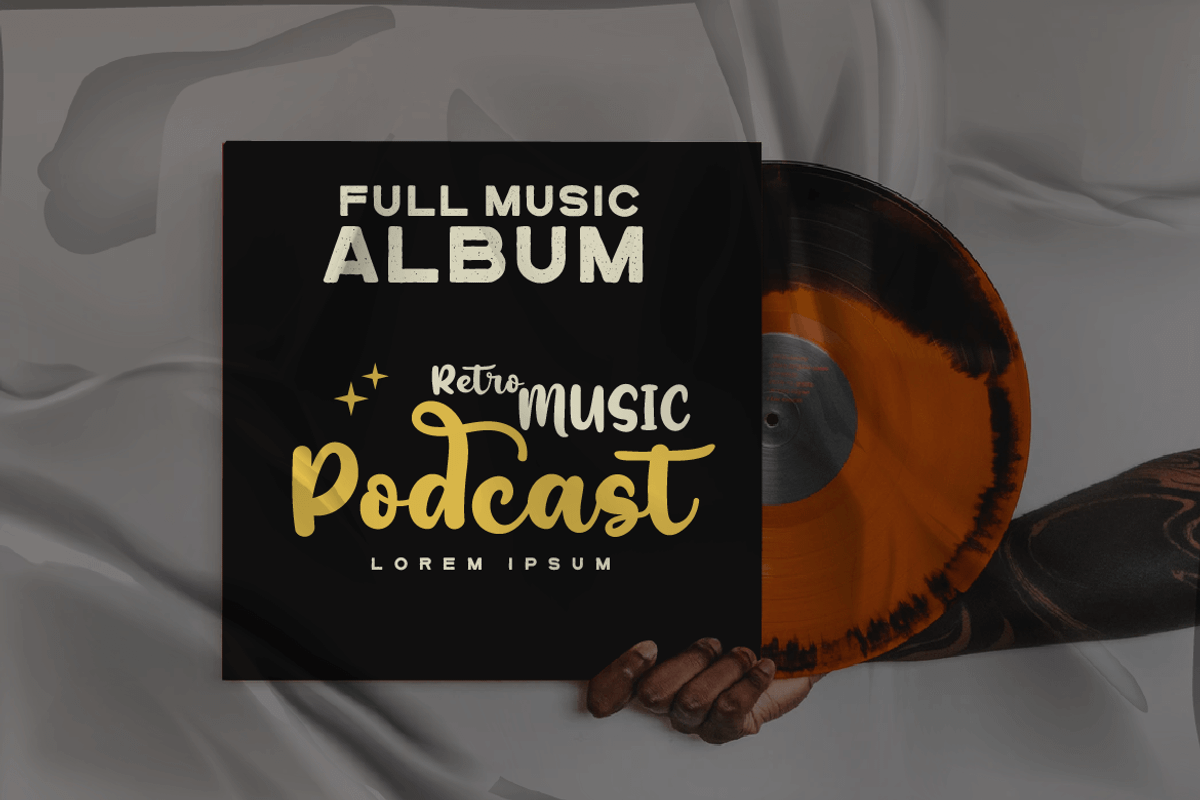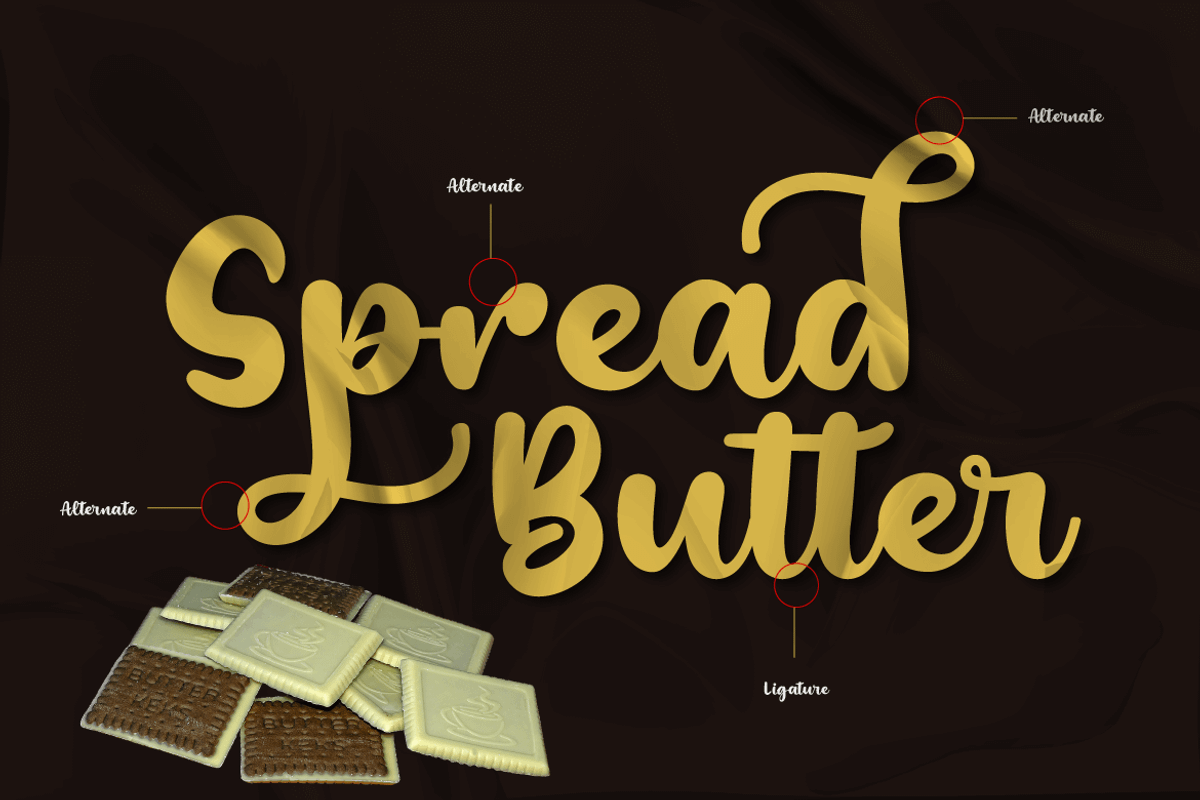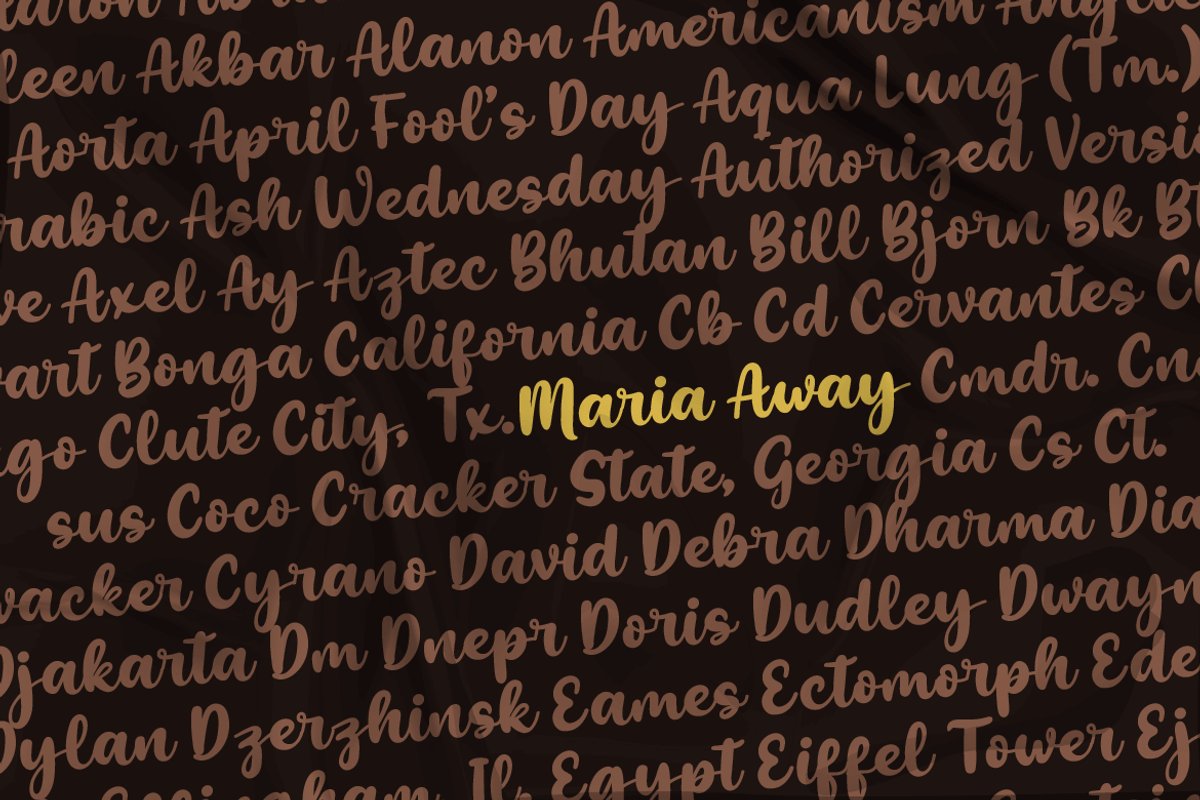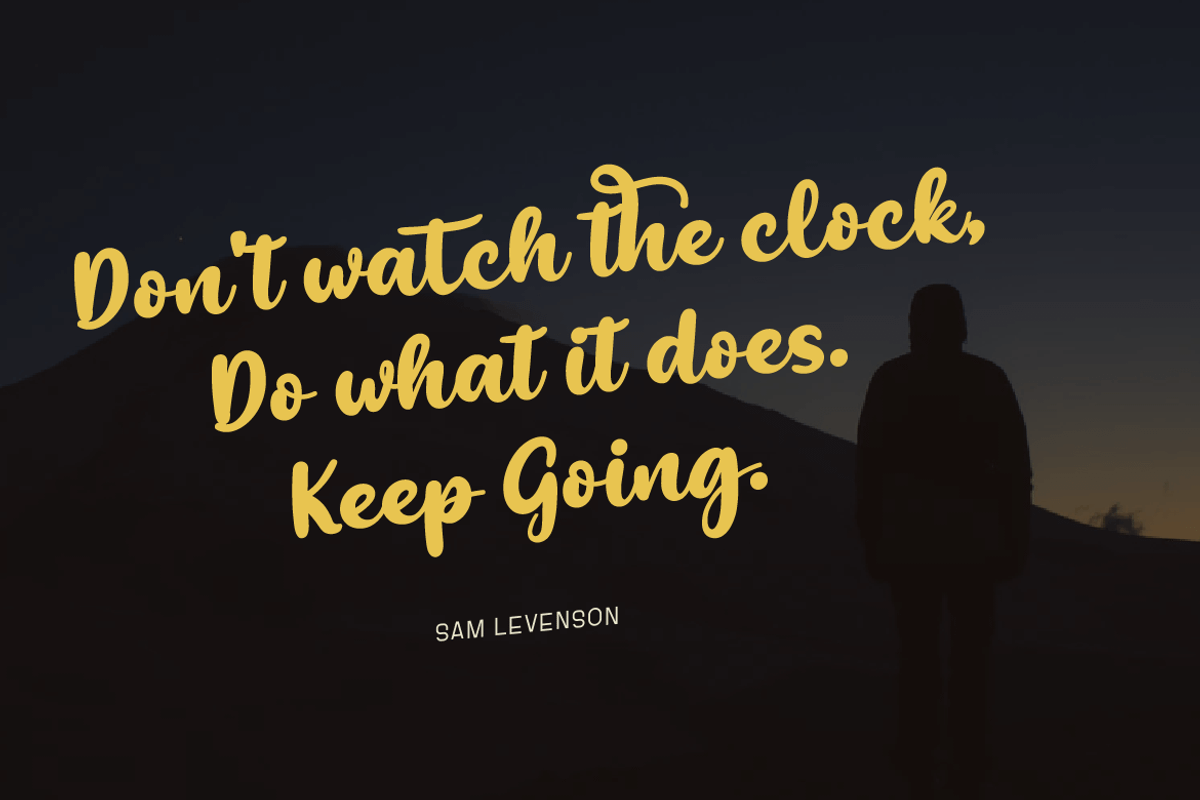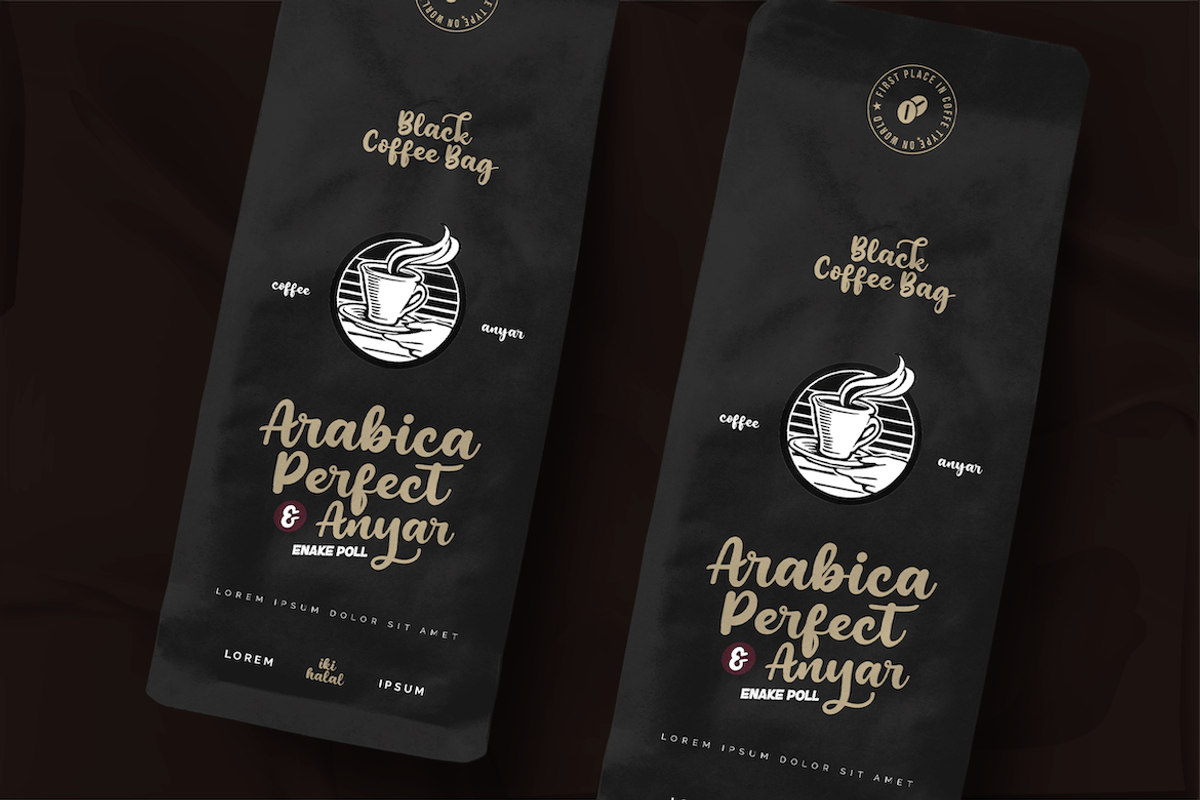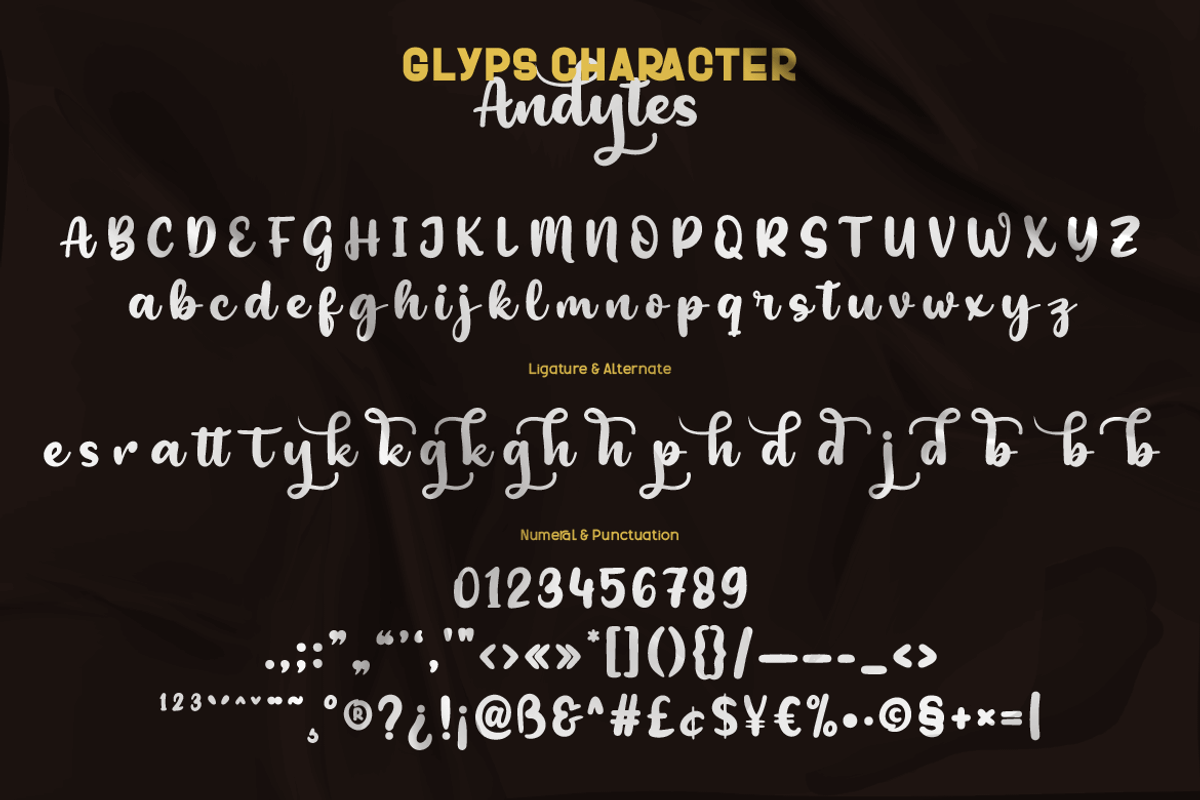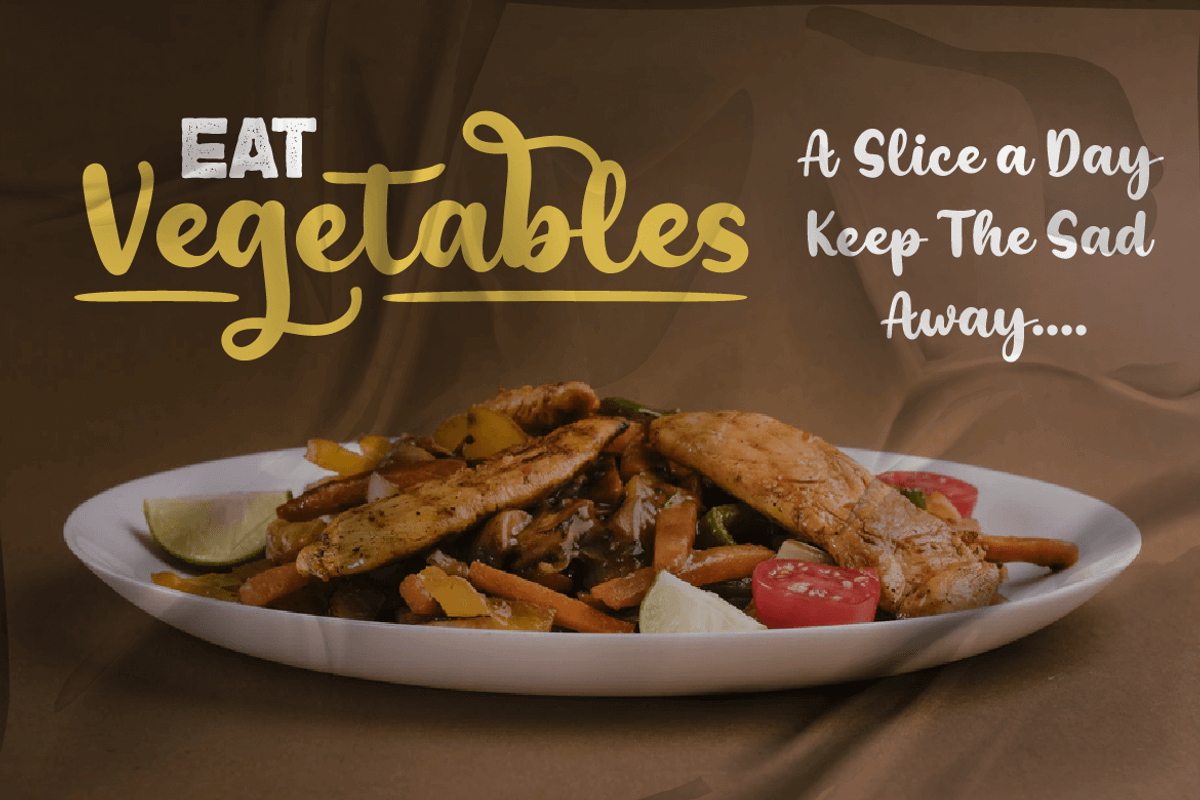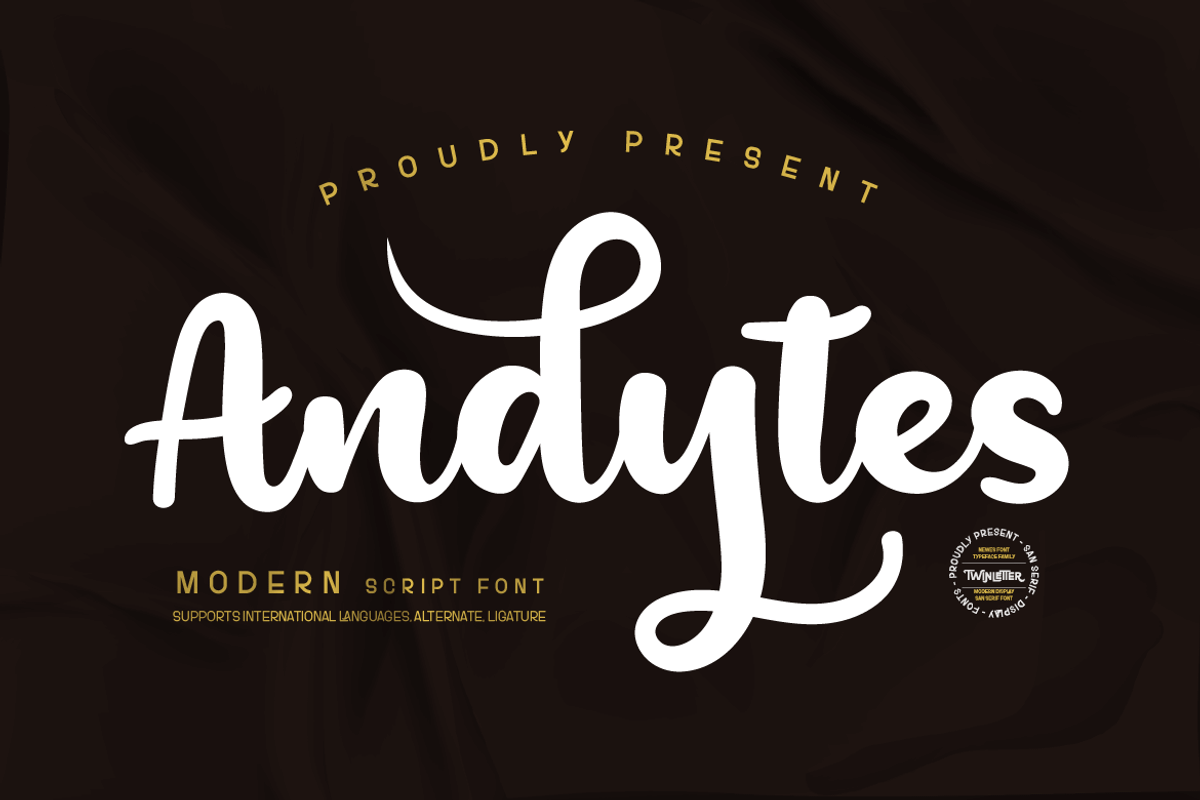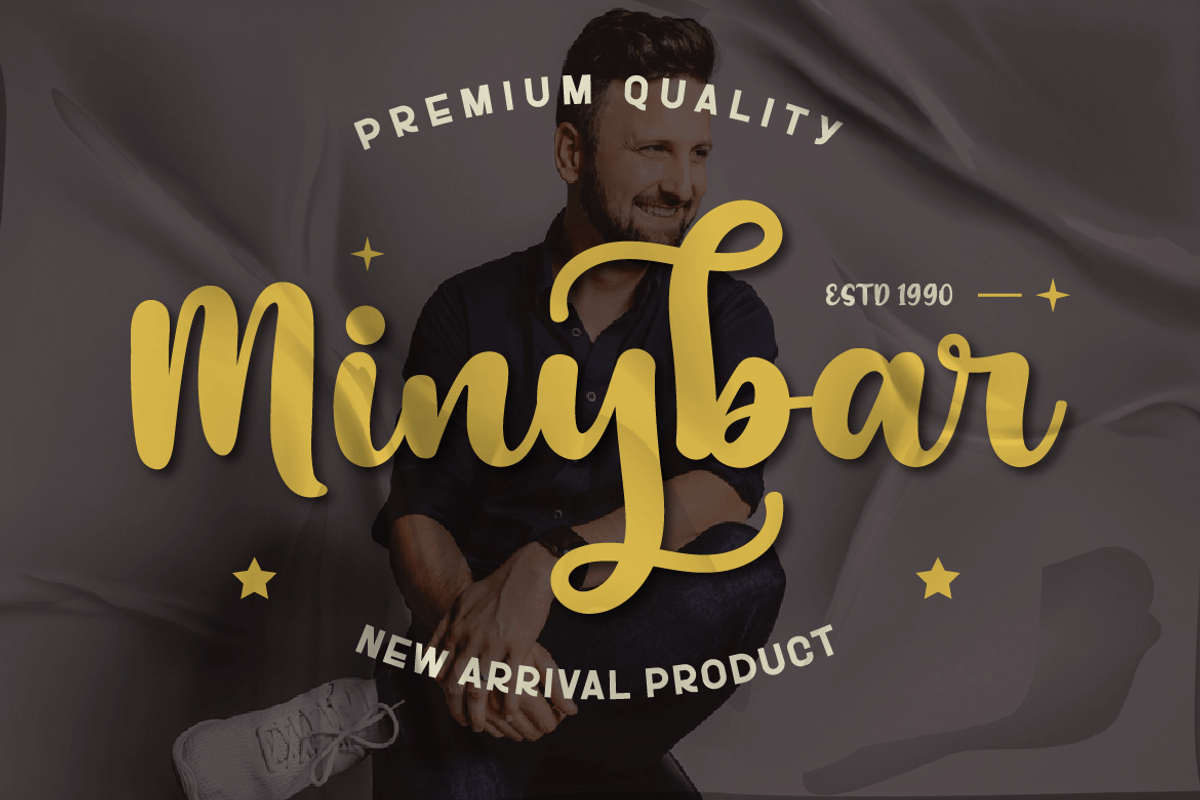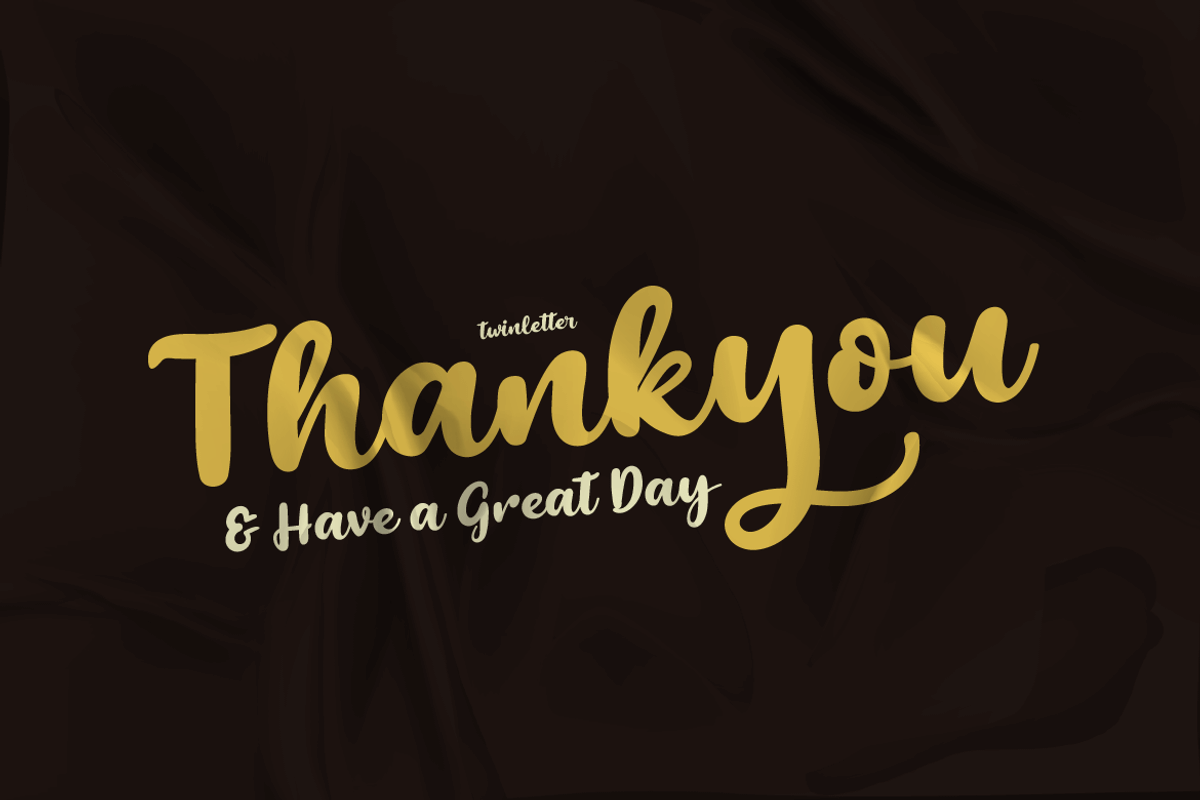
Andytes
Andesytes is a script font that is made by paying attention to every anatomical shape of the letter, so it looks neat and elegant when used. This font designed with natural hand touch has alternative features, ligatures and also supports multi-language, This font is designed with a natural touch of handwriting refined to create portions and compositions that suit your needs. So this font is perfect for crafts, logotypes, posters, titles, banners, wedding invitations, product packaging logos, quotes, social media page covers, book covers, and more.